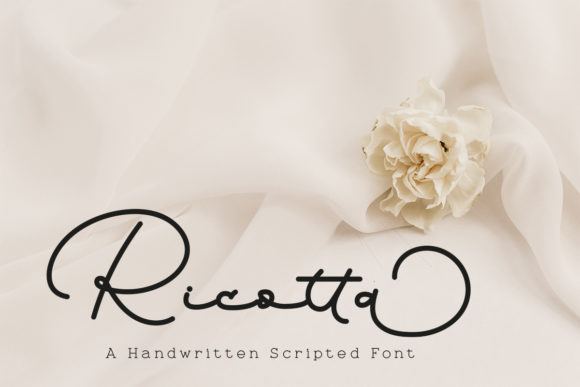
Introducing Ricotta Font: The Enchanting Handwritten Script That Will Make Your Designs Sing
In a world of digital monotony, Ricotta Font emerges as a breath of fresh air, an exquisite creation that captivates the senses and ignites imagination. This elegant handwritten script, meticulously crafted by Lettercorner Studio, is a testament to the power of artistry and the allure of the written word.
With its sweeping curves, delicate strokes, and undeniable charm, Ricotta Font is the perfect choice for those seeking to add a touch of magic to their creative projects. Whether you're designing logos, crafting invitations, or creating social media graphics, this font will elevate your work to new heights, leaving a lasting impression on all who encounter it.
Ricotta Font's versatility knows no bounds. Its flowing lines and graceful characters effortlessly adapt to a wide range of design styles, from classic and timeless to modern and whimsical. It's the perfect font for capturing the essence of your brand, whether you're aiming for a sophisticated, playful, or romantic aesthetic.
With Ricotta Font, you'll never be short of inspiration. Its enchanting characters will ignite your creativity, allowing you to express yourself in ways you never thought possible. Whether you're a seasoned designer or just starting out, this font will be your faithful companion, guiding you towards design excellence.
So, embrace the allure of Ricotta Font and unlock the boundless possibilities it holds. Let its enchanting characters dance across your designs, captivating your audience and leaving them spellbound. With Ricotta Font, your creative visions will come to life, transforming the ordinary into the extraordinary.